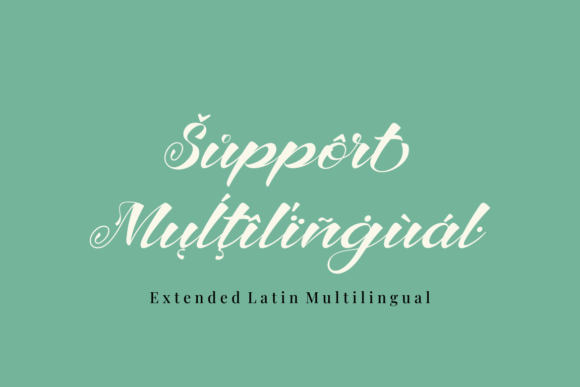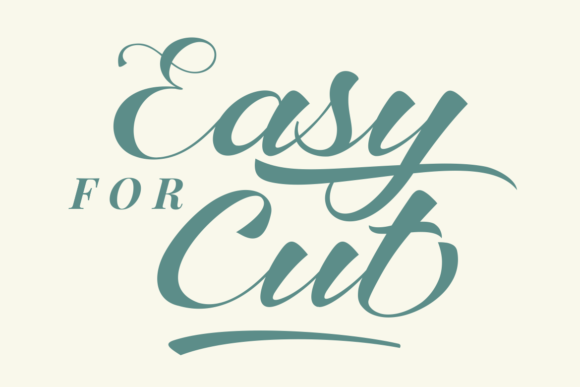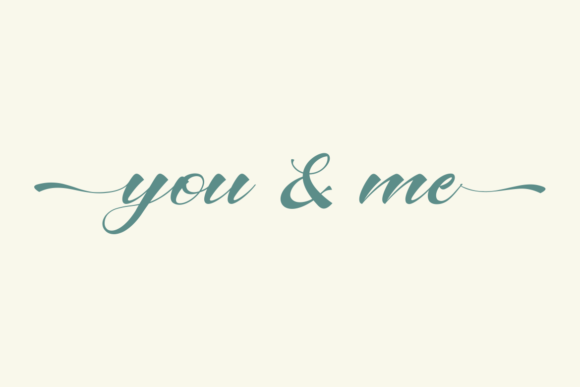
Introduction to Beauty Jinan Font Font
Fonts play a crucial role in design, and the Beauty Jinan Font font is a typeface that brings both character and versatility to any project. Whether you’re working on a branding project, a website, or a print design, the Beauty Jinan Font font offers a unique style that can elevate your work.
Beauty Jinan is an elegant script font with a contemporary atmosphere and impeccable form, inspired by timeless classic calligraphy.
Not too thin and not too thick, balanced and varied, this font was designed to enhance the beauty of your projects Beauty Jinan is PUA encoded which means you can access all of the glyphs and swashes with ease.
Key Features of Beauty Jinan Font Font
Why Choose Beauty Jinan Font Font?
The Beauty Jinan Font font is more than just a typeface – it’s a design tool that helps you communicate your message with style and clarity. Its unique character set and versatile design make it suitable for a wide range of applications, from elegant invitations to bold headlines.
With its carefully crafted letterforms and balanced proportions, the Beauty Jinan Font font ensures readability and visual appeal across all mediums.
What makes Beauty Jinan Font font special?
The Beauty Jinan Font font stands out with its unique design, exceptional readability, and versatility across various design applications.